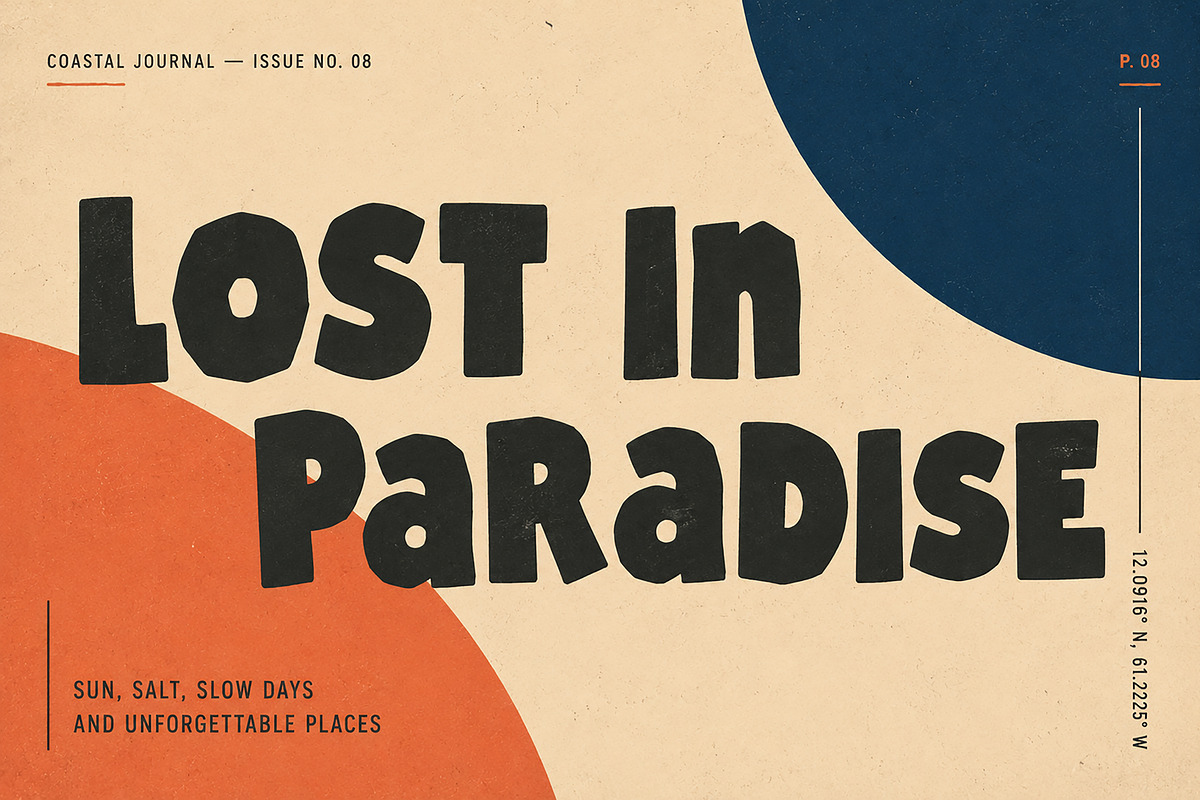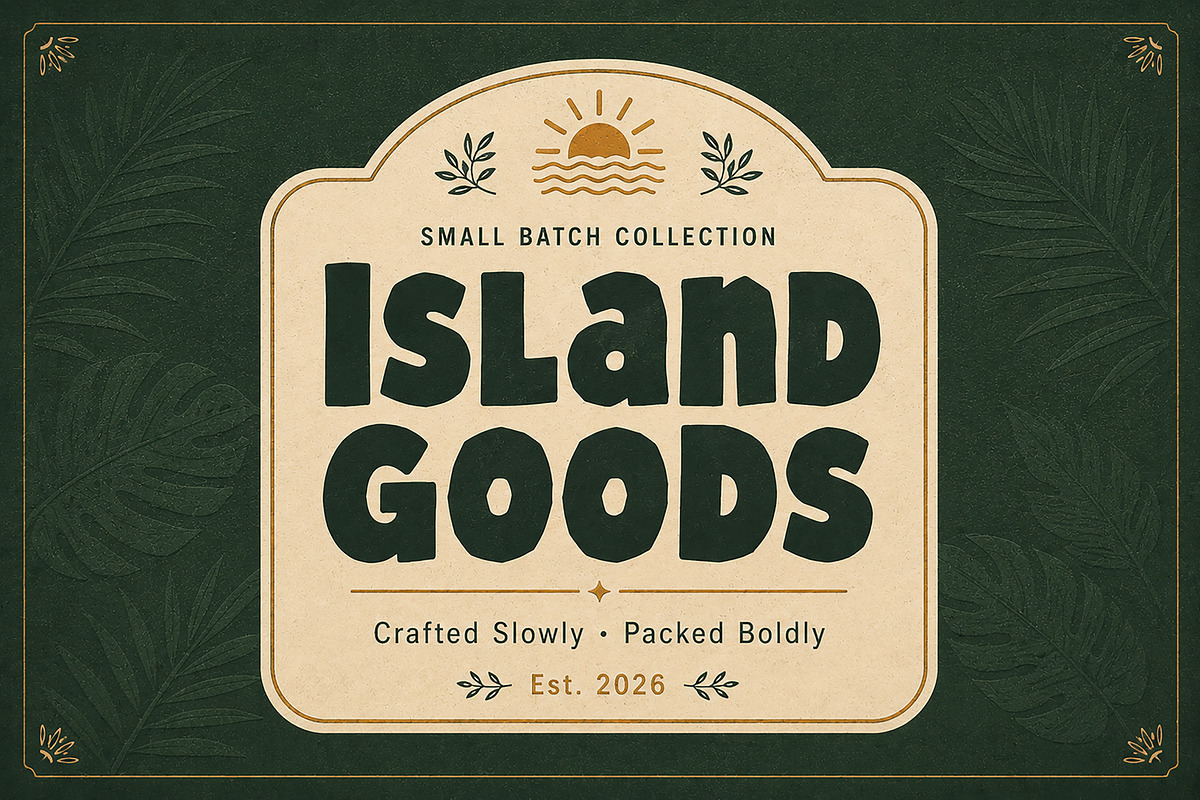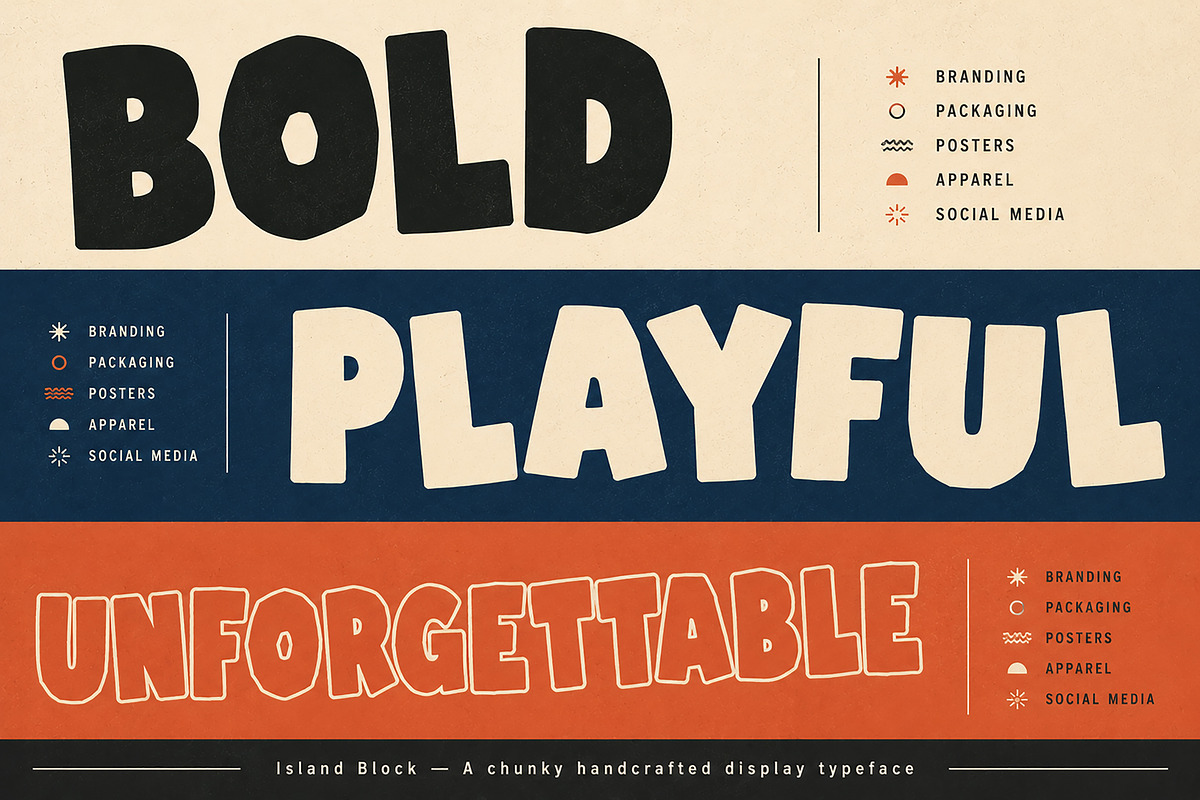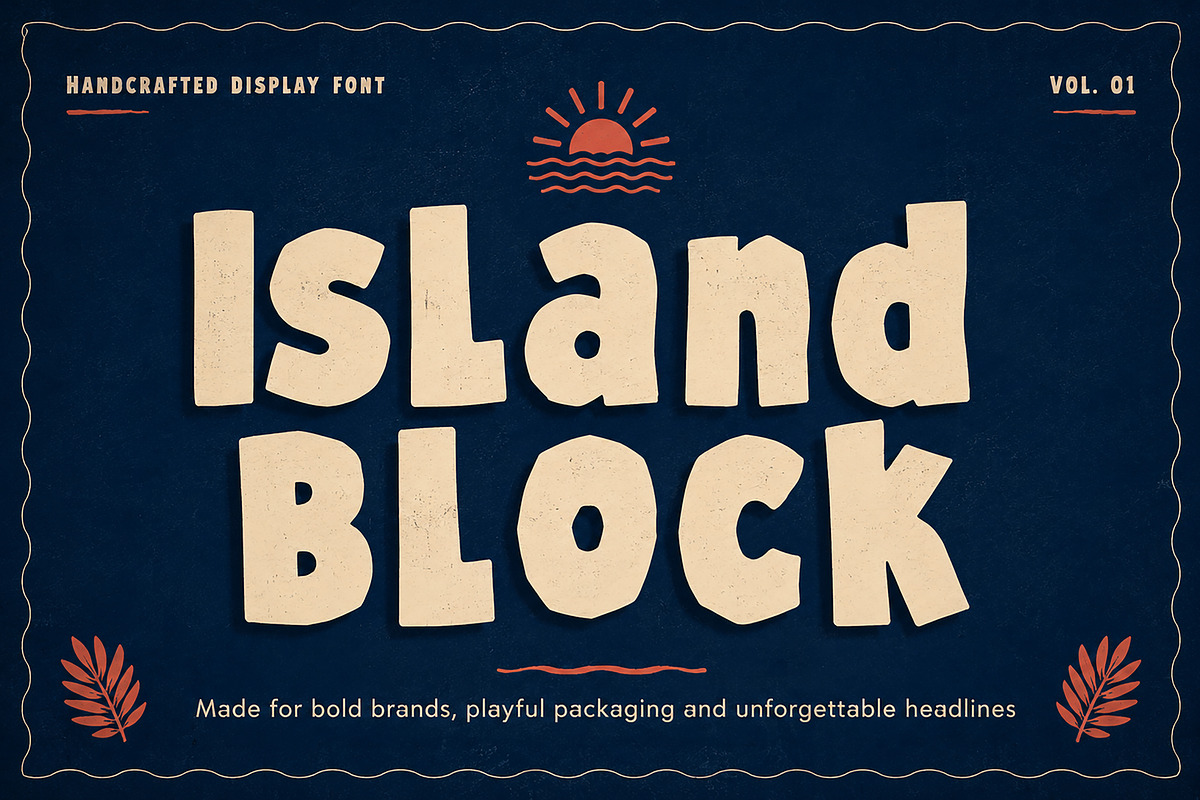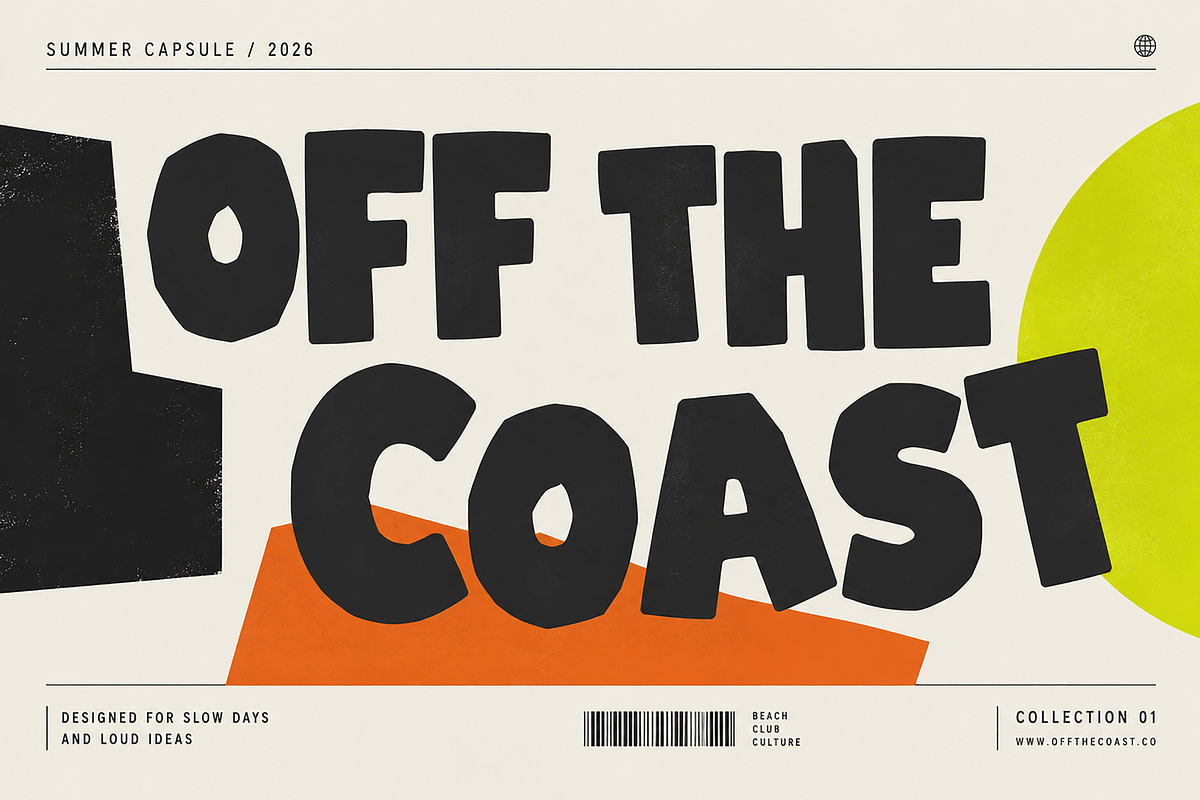
Island Block
Bold Handcrafted Display Font
Island Block is a bold handcrafted display font designed to make every headline impossible to ignore. With its chunky shapes, playful character, and organic handmade feel, this typeface is perfect for projects that need a strong visual personality while maintaining a modern and premium aesthetic.
Whether you're designing eye-catching branding, packaging, posters, apparel, or social media graphics, Island Block delivers a fun yet professional look that instantly grabs attention. Its slightly imperfect handcrafted forms add warmth and authenticity, making every design feel unique and memorable.
Perfect for creative brands, cafés, beach-inspired businesses, food packaging, children's products, lifestyle campaigns, and bold editorial layouts, Island Block is a versatile display font that stands out across both print and digital media.
Why You'll Love Island Block
Bold and eye-catching
Authentic handcrafted look
Fun yet premium personality
Perfect for modern branding
Excellent readability at large sizes